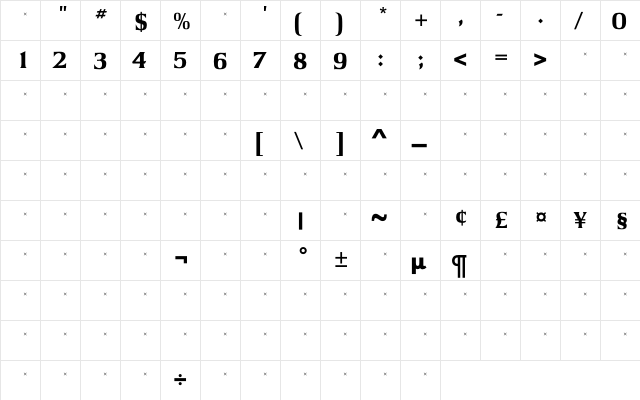
ArgusExBoldTab Regular Font Preview
ArgusExBoldTab Regular
Design Context for ArgusExBoldTab Typeface
ArgusExBoldTab is a composed and adaptable typeface that performs quietly and consistently across a wide range of design contexts. The heavy weight commands attention and anchors typographic hierarchies.